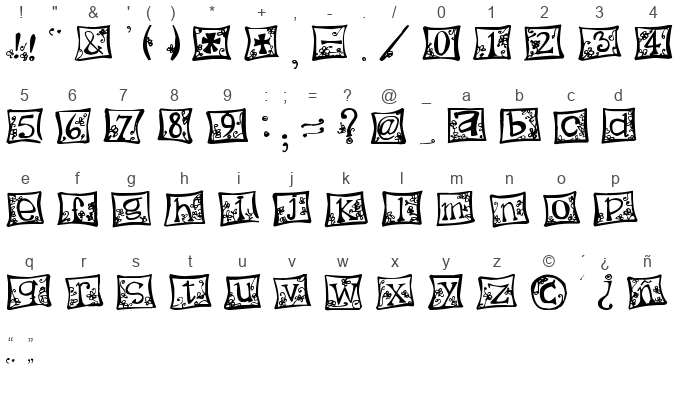
Indezonefont - Creative is a font that embodies artistic expression and innovation. It's not just a set of characters; it's a tool that brings life and character to words. The essence of this font lies in its ability to capture the attention of the viewer through its unique and inventive design elements. Each letter is meticulously crafted, making them not only a means of communication but also a piece of art in their own right.
Upon first glance, Indezonefont - Creative strikes a perfect balance between readability and originality. It shies away from the conventional and embraces creativity, making it an ideal choice for projects that aim to stand out. The fluidity in the font's design suggests movement, making each word appear as if it's set into motion. This dynamic quality injects energy into textual content, making it more engaging and memorable.
The versatility of Indezonefont - Creative is another of its strengths. Whether it's used in logos, posters, websites, or digital art, it adapts seamlessly, bringing its unique flair to various mediums. It's particularly popular among designers who seek to convey modernity, creativity, or innovation through their work. The font not only speaks to the audience but also resonates with them, leaving a lasting impression.
Indezonefont - Creative is, therefore, more than just typography. It's a manifestation of creative freedom, an invitation to explore the boundaries of design, and a celebration of the beauty that results when artistry and lettering collide.